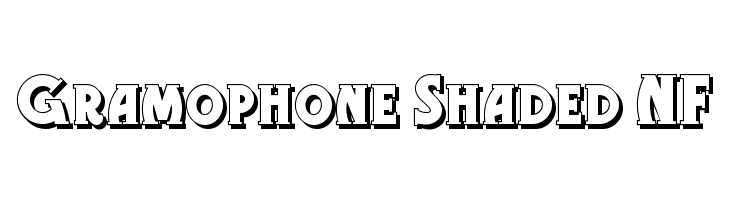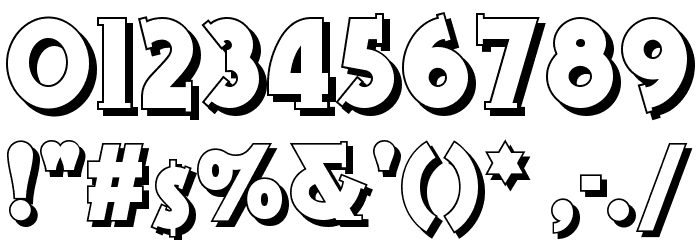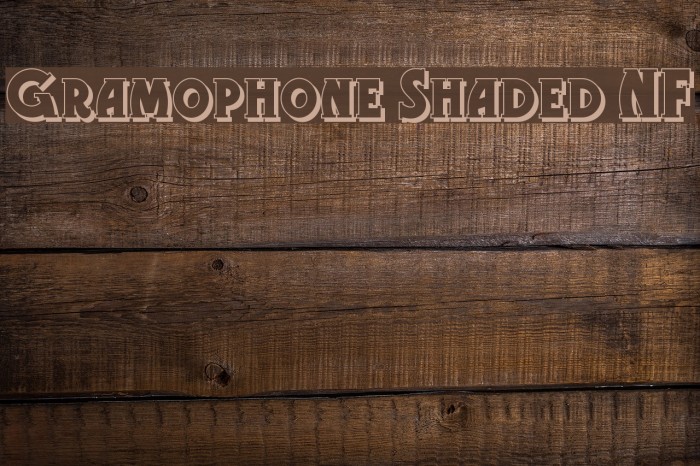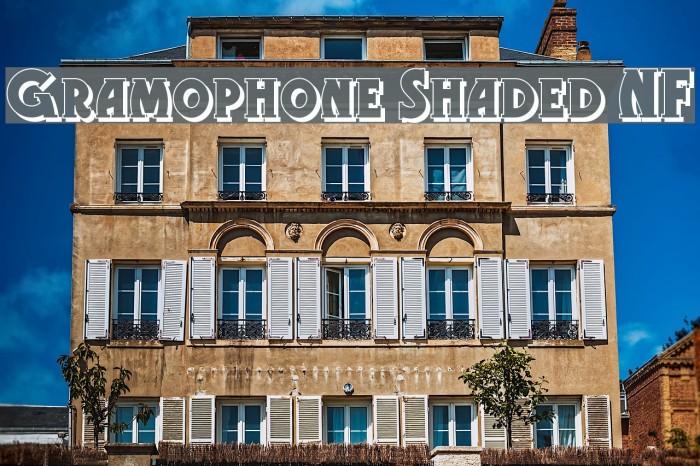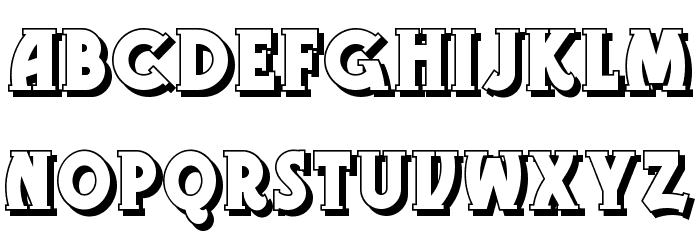
Gramophone Shaded NF Font
This font features a bold, decorative style with a distinct three-dimensional shaded effect that gives it a vintage and eye-catching appearance. The characters are capitalized with a strong presence, making them ideal for impactful headlines or titles. The shading adds depth, creating a sense of movement and dynamism. The font's design is reminiscent of early 20th-century signage or posters, with a playful yet sophisticated charm. The numerals and special characters maintain the same bold and shaded characteristics, ensuring consistency across all elements.
A bold, vintage-style font with a three-dimensional shaded effect.
• Proposed Projects: Ideal for retro-themed posters, vintage advertisements, event invitations, and branding projects that require a classic yet dynamic look.
• Category: Decorative/Display
• Overall Style: Vintage